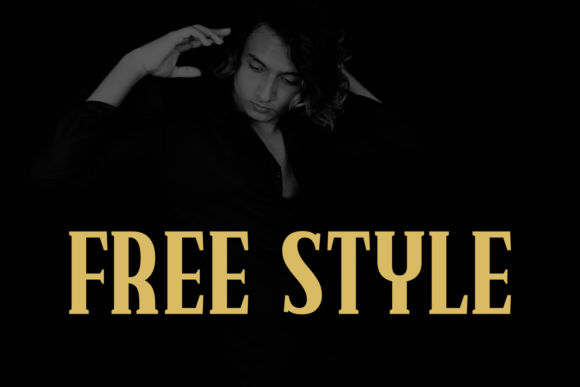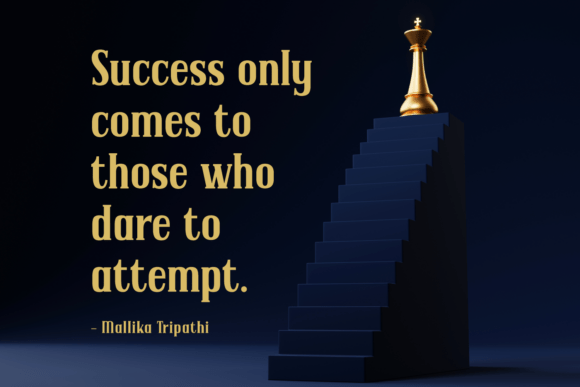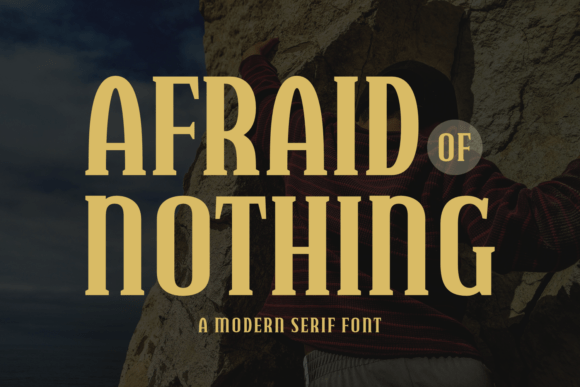
Afraid of Nothing Font: A Bold and Elegant Typeface for Impactful Designs
In the world of typography, a font can make or break a design. The right typeface can elevate a project from ordinary to extraordinary, conveying the perfect tone and aesthetic. For designers seeking a powerful and elegant typeface, the “Afraid of Nothing” font is an excellent choice. This striking modern serif typeface is designed for impact and readability, expertly blending traditional serif elegance with a contemporary, bold aesthetic.
What is the Afraid of Nothing Font?
The “Afraid of Nothing” font is a modern serif typeface that exudes confidence and sophistication. Its unique design combines the classic elements of traditional serif fonts with a bold, contemporary twist. The result is a versatile typeface that can be used for a wide range of design applications, from luxury branding and advertising to editorial design and packaging.
Key Features of the Afraid of Nothing Font
So, what sets the “Afraid of Nothing” font apart from other typefaces? Here are some of its key features:
• Modern Serif Design: The font boasts a sleek, modern serif design that adds a touch of sophistication to any project.
• Bold Aesthetic: The “Afraid of Nothing” font has a bold, attention-grabbing aesthetic that’s perfect for making a statement.
• High Readability: Despite its bold design, the font remains highly readable, even at smaller sizes.
• Versatility: The typeface is highly versatile and can be used for a wide range of design applications.
Why Choose the Afraid of Nothing Font?
With so many typefaces to choose from, why should designers opt for the “Afraid of Nothing” font? Here are just a few reasons:
• Unique Design: The font’s unique blend of traditional serif elegance and modern boldness sets it apart from other typefaces.
• Impactful: The “Afraid of Nothing” font is designed for impact, making it perfect for designers who want to make a statement.
• Elegant: Despite its bold design, the font remains elegant and sophisticated, making it suitable for high-end branding and luxury projects.
Design Applications for the Afraid of Nothing Font
The “Afraid of Nothing” font is highly versatile and can be used for a wide range of design applications, including:
• Luxury Branding: The font’s elegant, sophisticated design makes it perfect for luxury branding and high-end marketing materials.
• Advertising: The bold, attention-grabbing aesthetic of the “Afraid of Nothing” font makes it ideal for advertising and promotional materials.
• Editorial Design: The font’s high readability and classic serif design make it suitable for editorial design, including magazines, newspapers, and books.
• Packaging: The “Afraid of Nothing” font can be used for packaging design, adding a touch of elegance and sophistication to product labels and packaging materials.
Font Name Afraid of Nothing Font
Author Eightde
In conclusion, the “Afraid of Nothing” font is a powerful and elegant typeface that’s perfect for designers seeking a bold and sophisticated design solution. Its unique blend of traditional serif elegance and modern boldness makes it highly versatile and suitable for a wide range of design applications. Whether you’re working on a luxury branding project, advertising campaign, or editorial design, the “Afraid of Nothing” font is an excellent choice.
Elevate your designs with the “Afraid of Nothing” font – a bold, elegant, and versatile typeface that’s sure to make a statement.